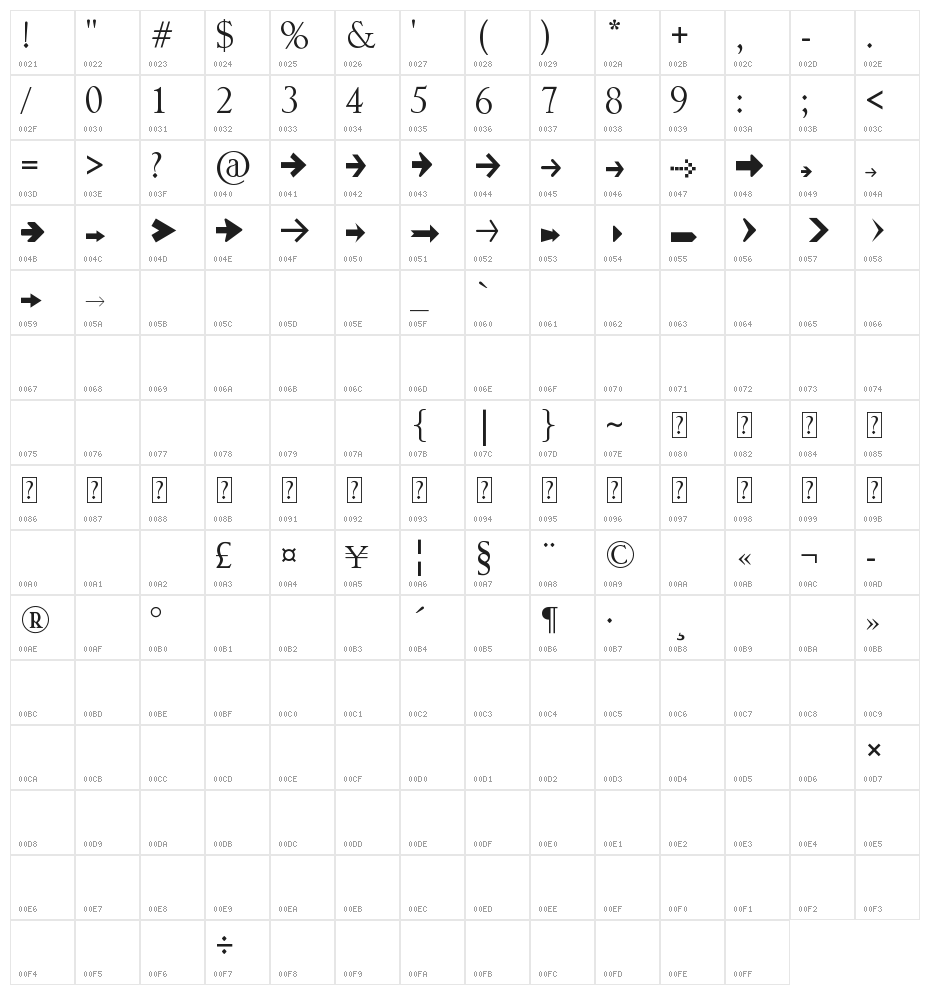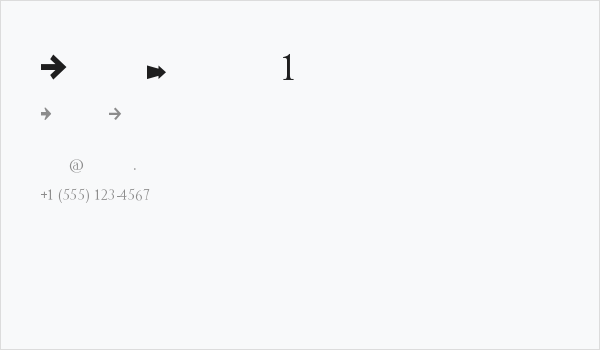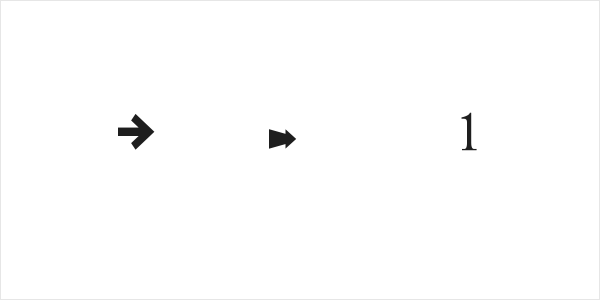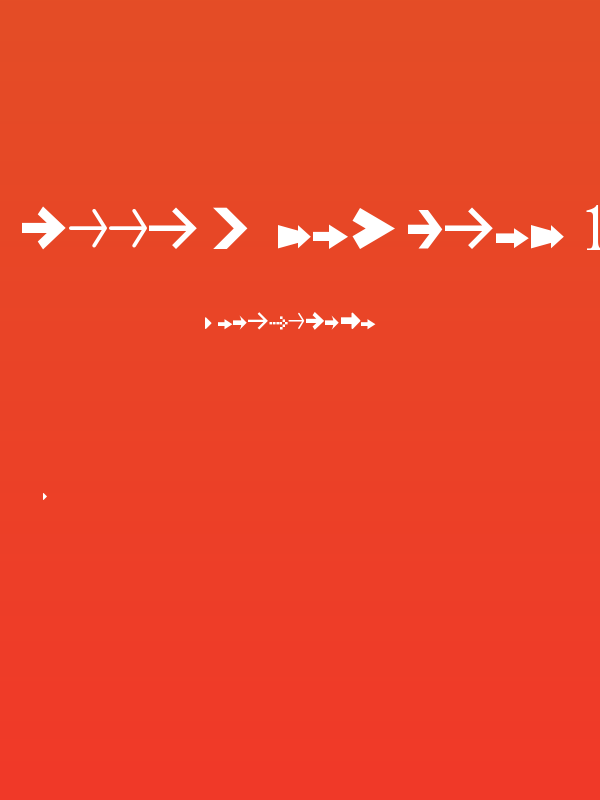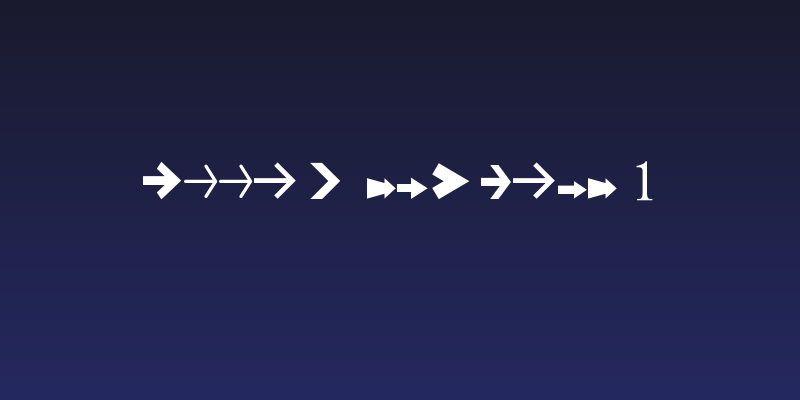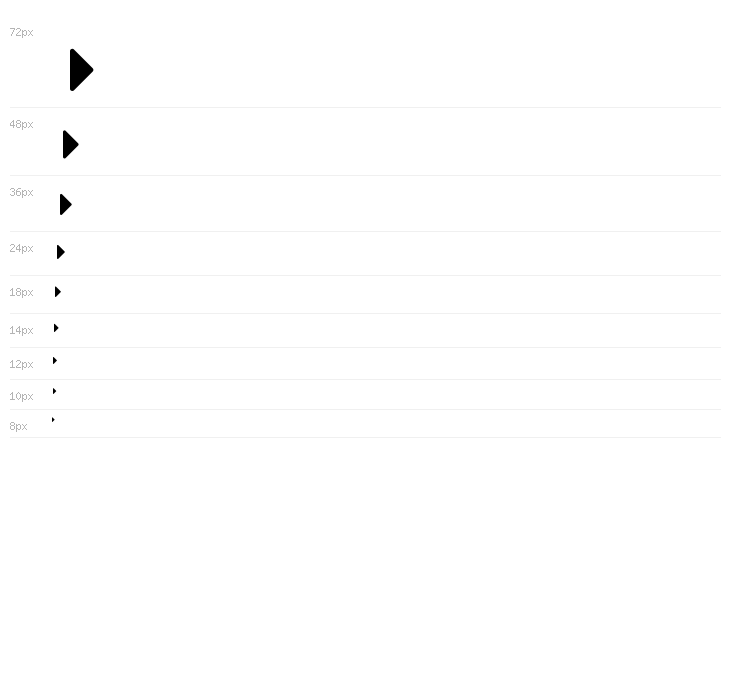
Arrow Symbols 1 Font
Arrow Symbols 1 Description
This image showcases a collection of arrow symbols, each with distinct styles and designs. The arrows vary in thickness, direction, and decorative elements, offering a diverse range of visual options. Some arrows are bold and solid, while others are outlined or feature intricate patterns like dotted lines or pixelated effects. This variety allows for versatile use in design projects, providing options for both straightforward and creative applications.
| Use Case | Icons, Infographics, Navigation |
| Proposed Projects | Ideal for infographics, navigation icons, instructional materials, and creative design projects requiring directional indicators. |